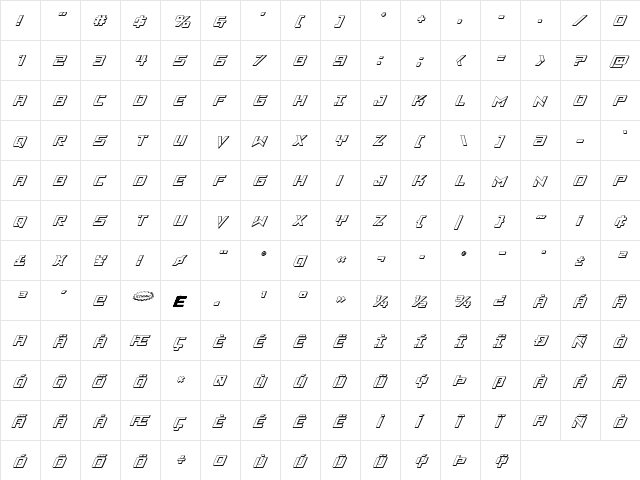
Viking Squad 3D Italic Italic
Design Context for Viking Squad 3D Italic Typeface
Viking Squad 3D Italic is a composed and adaptable typeface that performs quietly and consistently across a wide range of design contexts. The dynamic lean of this cut emphasises speed and emphasis in any layout.